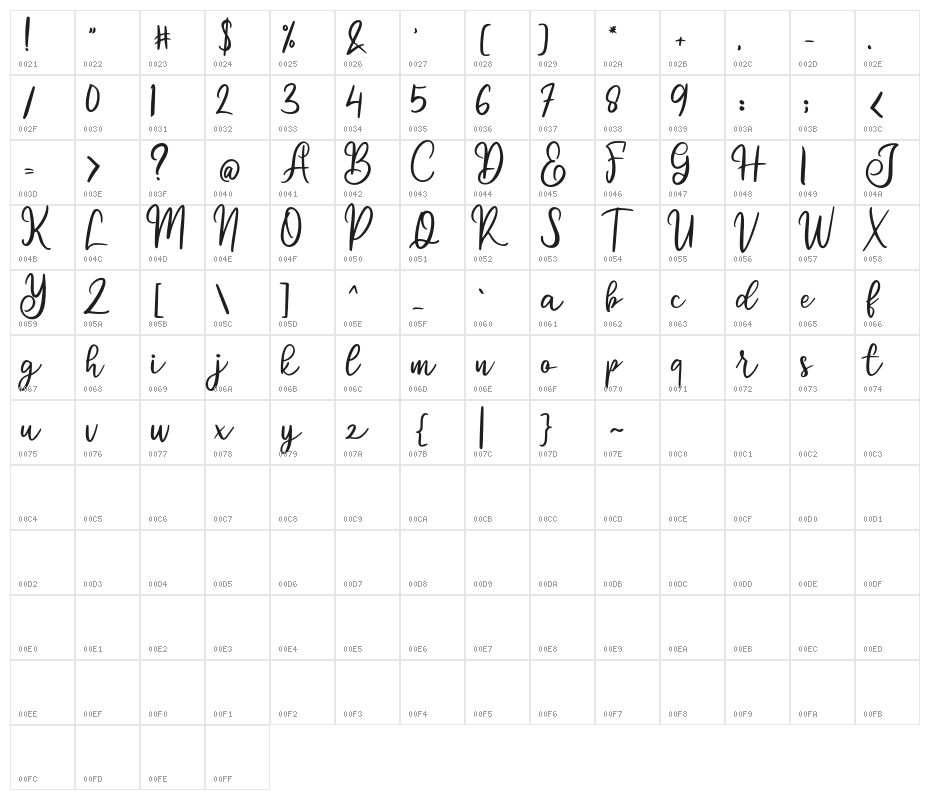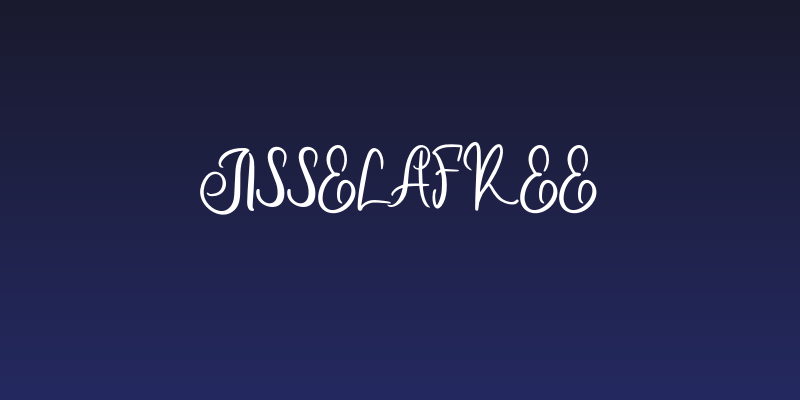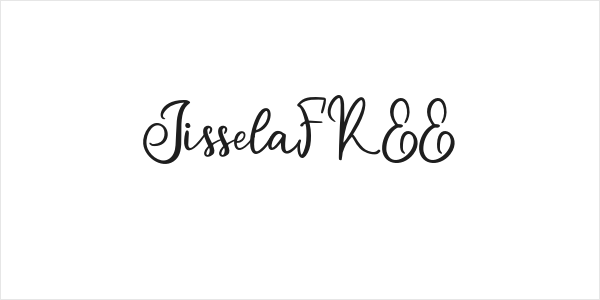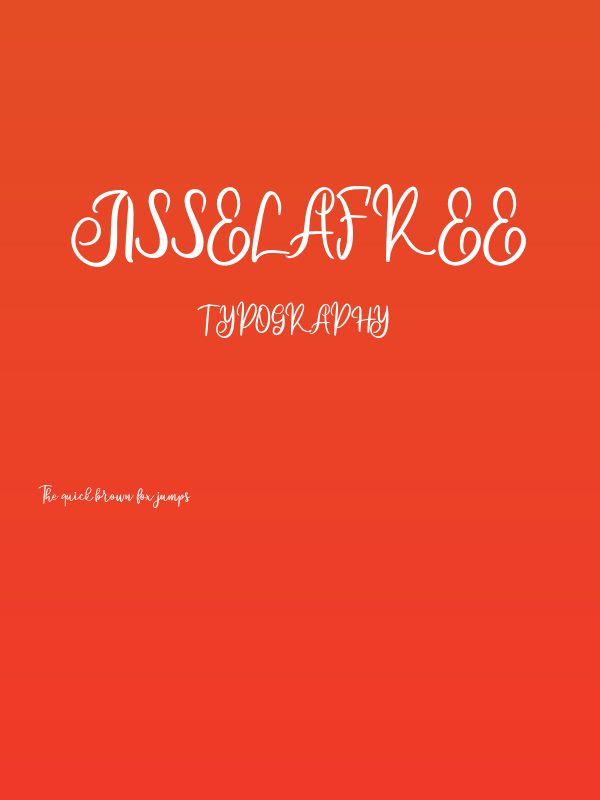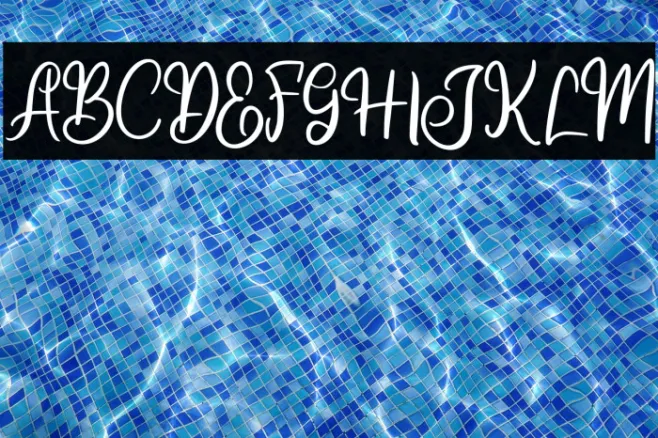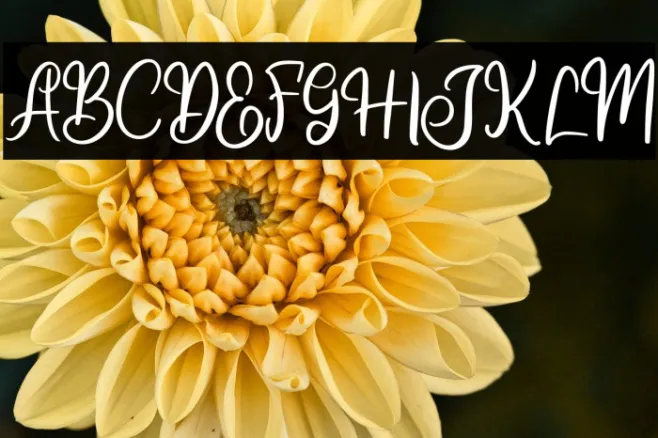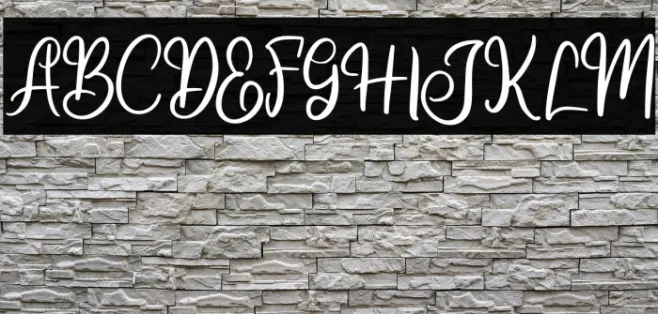
JisselaFREE Font
JisselaFREE Description
This font features a lively and flowing script style, characterized by its smooth, cursive letterforms that convey a sense of elegance and playfulness. The uppercase letters are bold and slightly slanted, with unique flourishes that add a touch of sophistication. The lowercase letters maintain a consistent flow, with rounded edges and a harmonious connection between characters. The numerals are clear and easy to read, while the special characters complement the overall style with their graceful curves. This font's design is both modern and timeless, making it versatile for various creative applications.